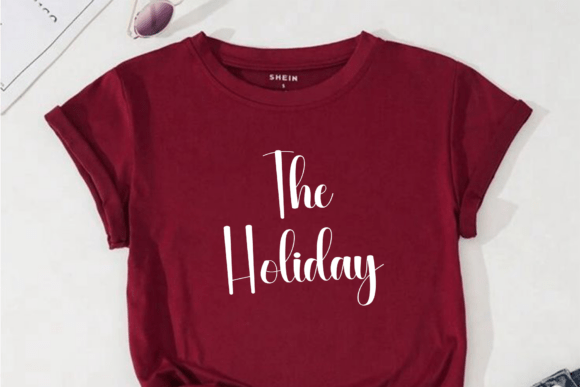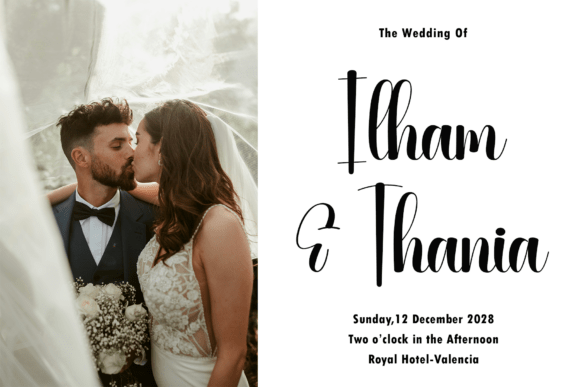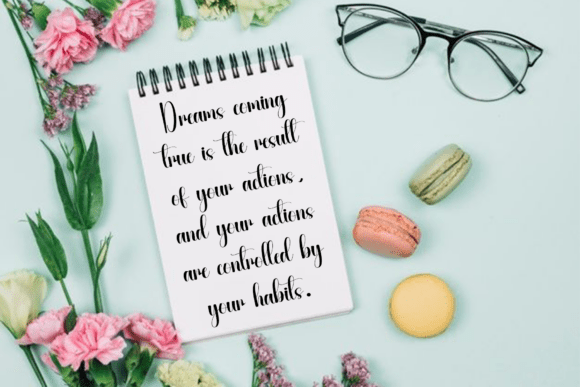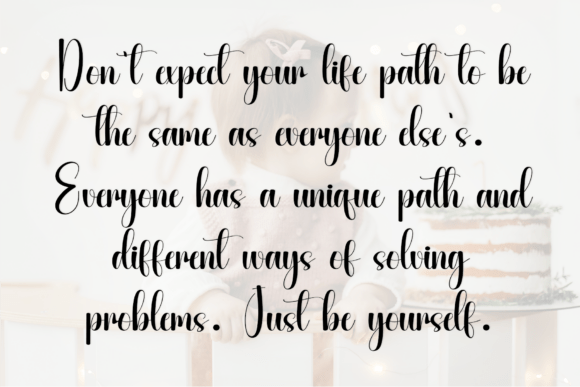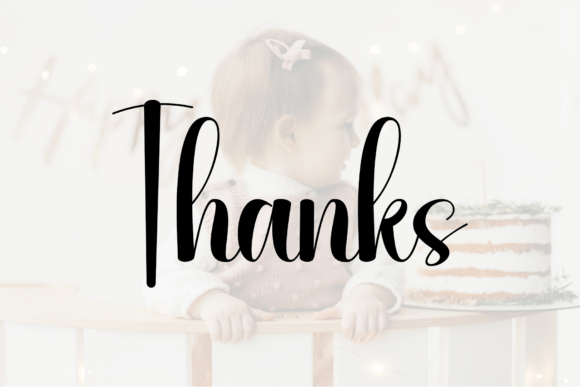
The Birth of a Timeless Script: Babyday Font
Do you ever find yourself lost in the simple joy of writing out a loved one’s name in cursive, the soft curves and swoops a testament to the love and care you put into every stroke? For many designers, that moment of creative connection is a reminder of why we do what we do – to craft something beautiful that touches the hearts of others. And that’s exactly what the Babyday Font embodies.
As a sophisticated, elegant handwritten script font, Babyday Font is the perfect choice for those looking to add a touch of luxury and sophistication to their designs. From high-end editorial signatures to intimate event branding, this font is a versatile and valuable tool for designers looking to elevate their work. Whether you’re working on a wedding invitation or a lifestyle photography project, Babyday Font is sure to leave a lasting impression.
Babyday Font Key Features
- Font Family: Babyday Font is a modern, cursive script font designed for use in various applications, including digital and print media.
- Unique Characteristics: Babyday Font features a unique, hand-drawn style with subtle imperfections, giving it a personal and emotive feel. The font also includes a range of ligatures and swashes to enhance its aesthetic appeal.
Babyday Font Review
Overall, I think Babyday Font has a certain charm to it. The whimsical and playful feel of the font is perfect for any design project that requires a touch of innocence and childlike wonder ✨. I particularly love how the font’s curves and rounded edges create a sense of softness and approachability. It’s a great choice for designers who want to convey a sense of playfulness and fun.
- The font’s unique and quirky design elements add a lot of character to any design project ✨
- The rounded edges and soft curves make the font easy on the eyes and create a sense of approachability
- The font is highly legible, even at smaller font sizes
- The font may not be suitable for more formal or professional designs ⚠️
- The font’s whimsical feel may not translate well to more serious or complex design projects
- The font may not be as versatile as some other font options, particularly in terms of styling and customization
Babyday Font is a great choice for designers who want to add a touch of whimsy and playfulness to their projects. While it may not be suitable for all design projects, I think it’s a great addition to any designer’s toolkit. With its unique design elements and high legibility, I think Babyday Font is a great choice for designers who want to create engaging and approachable designs.
Tips for Getting the Most Out of Babyday Font
1. Use Babyday Font for designs related to babies and children, such as nursery decor, baby announcements, and children’s party invitations.
2. Experiment with different font sizes and colors to create visually appealing designs.
3. Combine Babyday Font with other fonts to create a unique and eye-catching design.